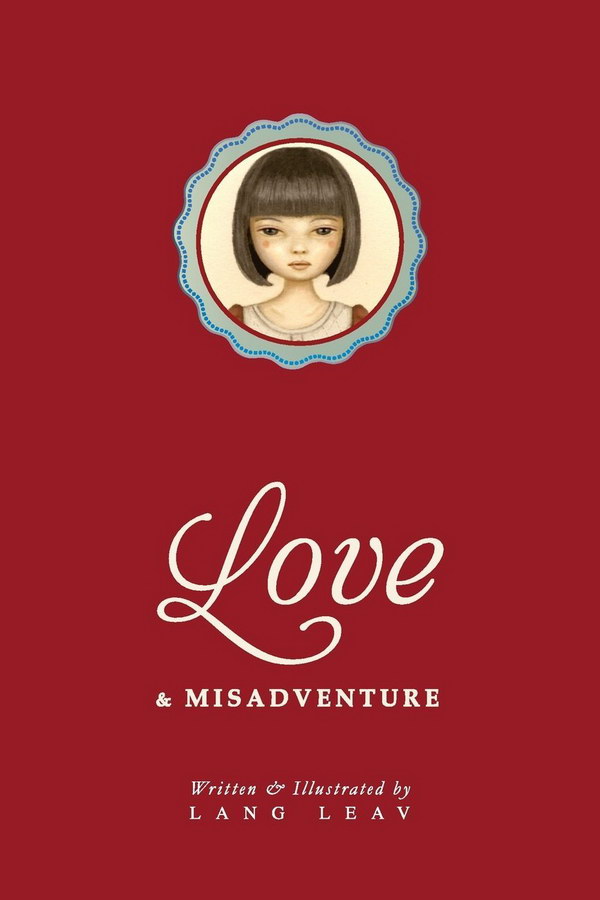
Love & Misadventure Font
BookLove & Misadventure is a collection of poetry by Lang Leav published in 2013 exploring the ups and downs of love and relationships.
The book title on the cover appears to be set in two fonts. The graceful "Love" is very similar to Aphrodite Contextual by Typesenses and the "Misadventure" seems to be set in Joanna Bold designed by Eric Gill.